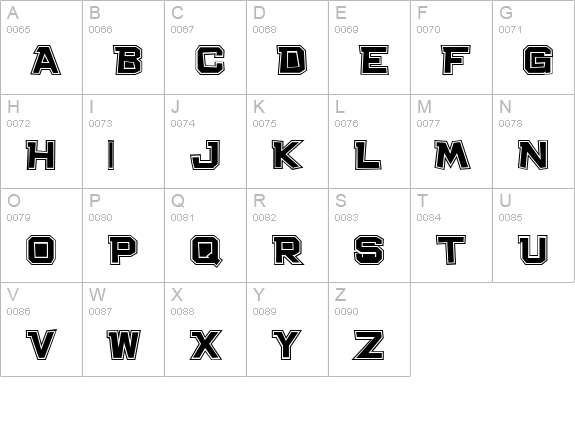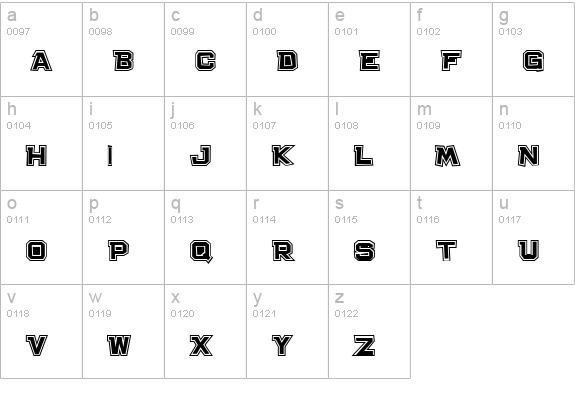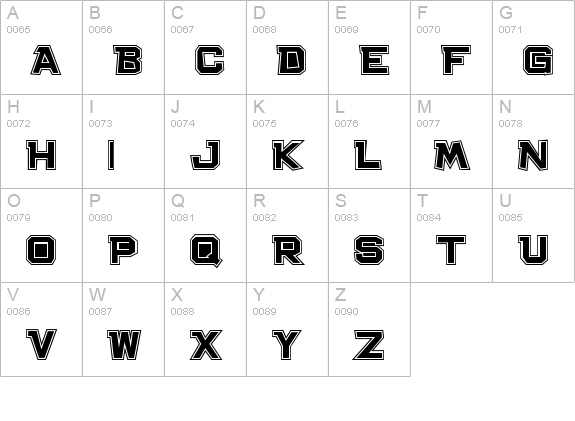
Bachelor Pad College JL Font Details
Bachelor Pad College JL font is a versatile typeface that exudes a classic yet modern charm. This font is perfect for creating eye-catching designs that demand attention. With its bold and distinct letterforms, Bachelor Pad College JL font effortlessly captures the essence of vintage collegiate aesthetics. Featuring a wide range of characters, including uppercase, lowercase, numbers, and punctuation marks, this font offers endless possibilities for your creative projects. Whether you're designing logos, posters, invitations, or social media graphics, Bachelor Pad College JL font will add a touch of sophistication and personality to your work. What sets Bachelor Pad College JL font apart is that it is freely available to download at FontsMarket.com. This means that you can access this incredible font without spending a penny. FontsMarket.com is a trusted platform that offers a vast collection of fonts, ensuring that you have access to high-quality and unique typefaces to enhance your design endeavors. Don't miss the opportunity to add Bachelor Pad College JL font to your font library. Download it today from FontsMarket.com and let your creativity soar. Whether you're a professional designer or a hobbyist, this font will undoubtedly elevate your projects and leave a lasting impression.